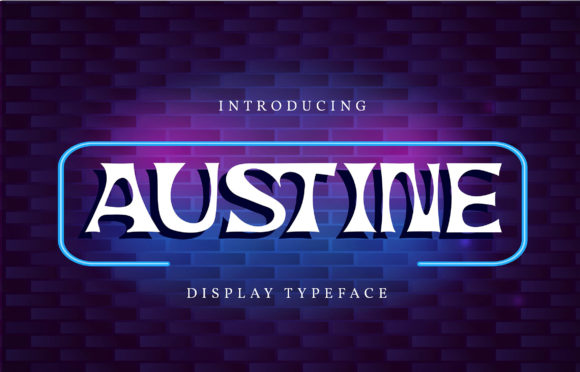
The Ultimate Guide to Austine Font: Unleashing Creative Possibilities
I’ll never forget the moment I stumbled upon the Austine font. I was working on a retro-themed project for a client, and I was struggling to find the perfect display font. That’s when I discovered Austine – an incredibly cool, trendy, and retro-styled font that instantly caught my attention. In this article, I’ll share my experience with Austine, its features, and how to make the most of it in your designs.
A Personal Review of Austine Font
As a designer, I’m always on the lookout for fonts that can elevate my work. Here’s what I love about Austine:
- ✨ PUA encoded for easy access to glyphs and swashes
- ✅ Versatile style that fits various design projects
- 💥 Retro vibe that’s perfect for themed designs
- 🎨 OpenType features for advanced typography
While Austine is an amazing font, there are a few quirks to keep in mind:
- 🤔 Some swashes may not work well with certain font sizes or styles
- ⚠️ Limited availability of language support for non-English characters
The Story Behind Austine Font
Austine font was designed by a team of creatives who aimed to create a unique, retro-styled display font. Inspired by vintage typography and classic designs, they crafted Austine to be versatile and attention-grabbing. With its PUA encoding and OpenType features, Austine has become a favorite among designers and crafters.